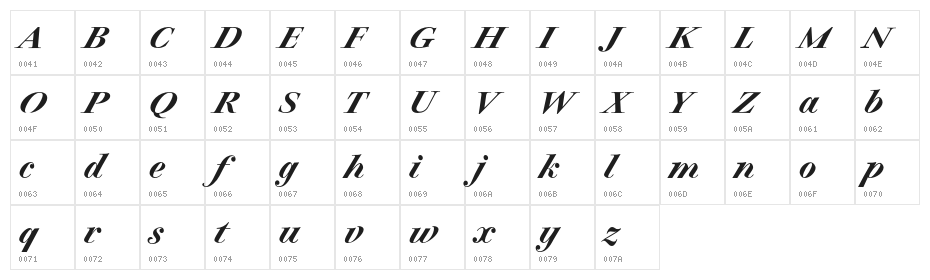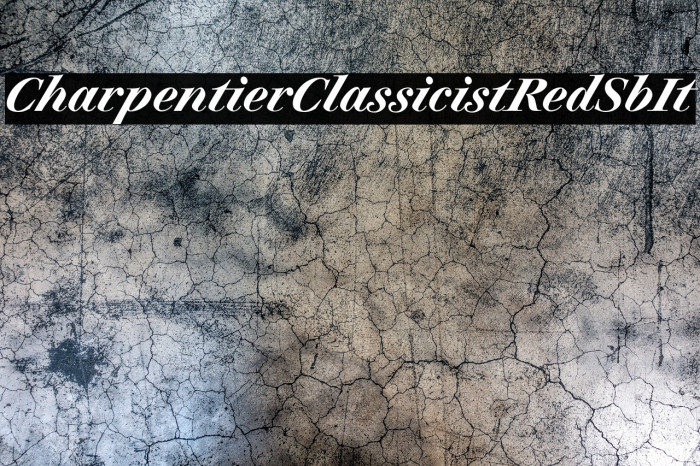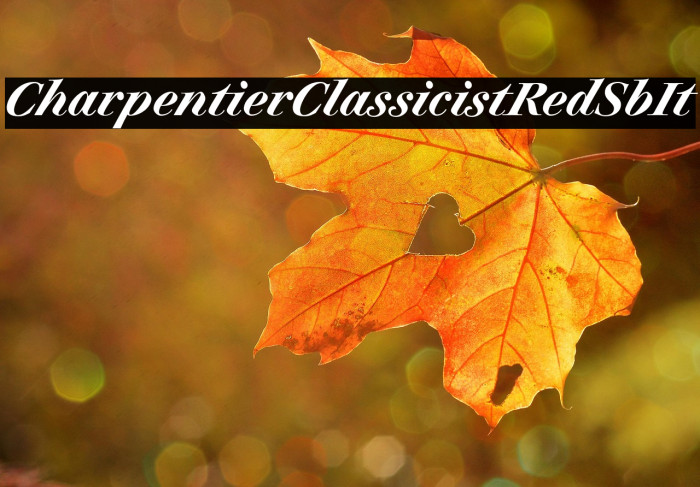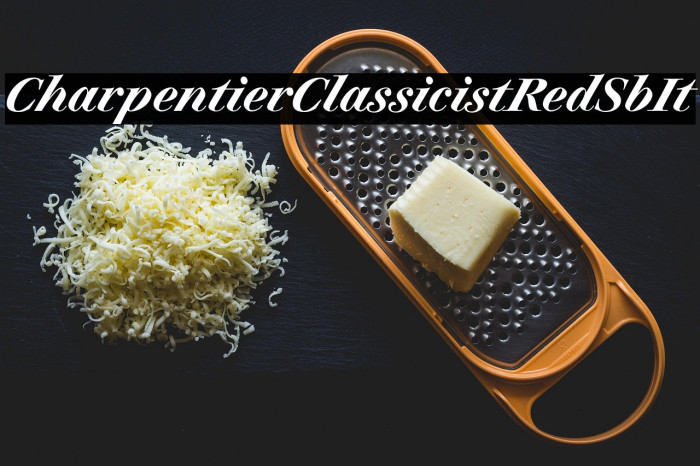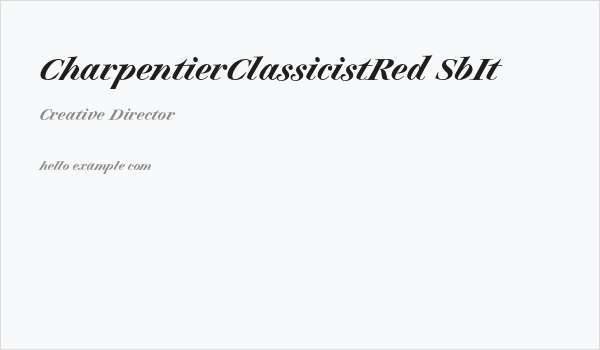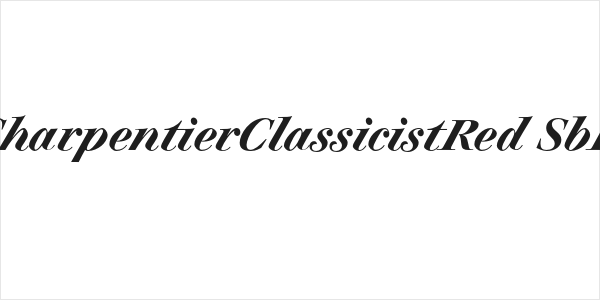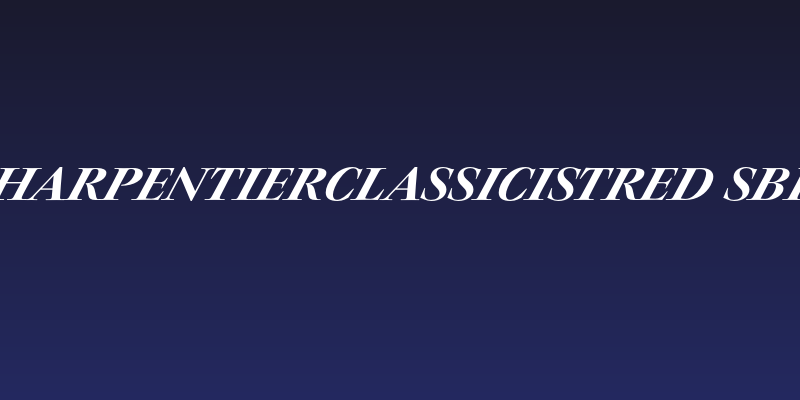
CharpentierClassicistRed-SbIt Font
CharpentierClassicistRed-SbIt Description
This elegant serif font features a classic and sophisticated style with a slight italic slant, giving it a refined and dynamic appearance. The characters exhibit a high contrast between thick and thin strokes, enhancing readability and adding a touch of luxury. The serifs are pronounced yet graceful, contributing to the font's timeless appeal. The overall design is balanced, with a moderate width and normal character spacing, making it suitable for both formal and creative applications. The font's aesthetic is reminiscent of traditional calligraphy, yet it maintains a modern edge, making it versatile for various design needs.